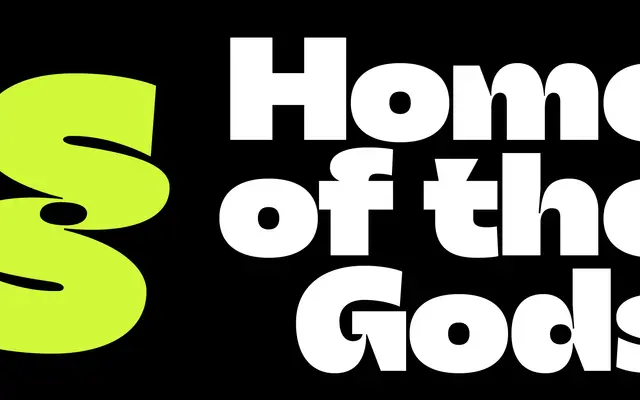
Asgard
Zetafonts · Francesco Canovaro · 2021
A 72-style geometric sans by Francesco Canovaro that borrows high-contrast details from wood-type and letterpress traditions across three widths and a backslant axis.
Designed by Francesco Canovaro with contributions from Mario De Libero and Andrea Tartarelli, the family spans Fit, Regular and Wide widths at eight weights from Thin to Fat, each with roman, italic and backslant cuts. The 968-glyph set covers over 200 languages across Latin, Greek and Cyrillic, and all three variation axes are accessible via an included variable font. The combination of a rational geometric skeleton with calligraphy-influenced stroke contrast gives it a range unusual for a display sans.
Built on a geometric sans skeleton with high-contrast details drawn from wood-type and letterpress vernacular traditions, giving it an unusual tension between rational structure and expressive weight contrast.